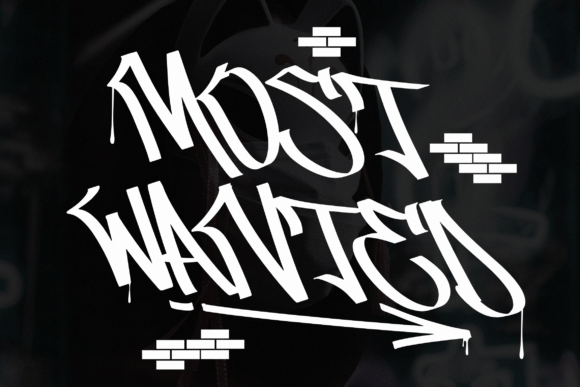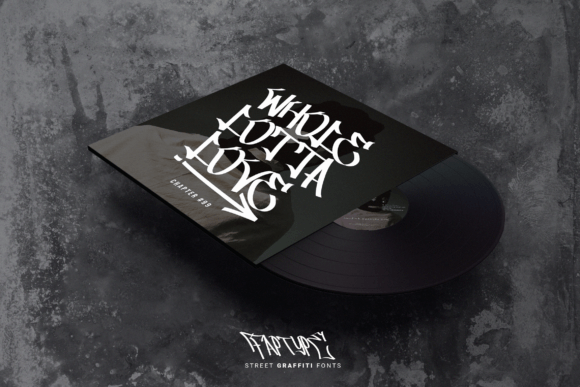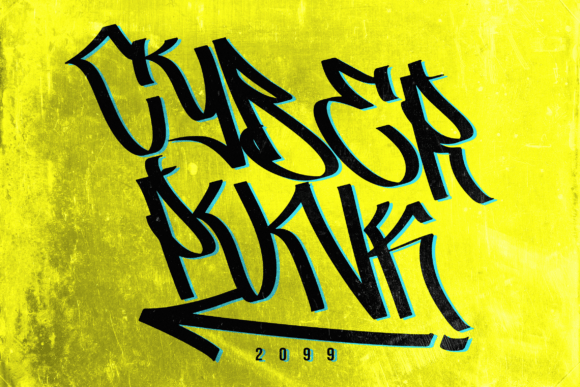
Introduction to Silver Raven Font
Silver Raven This font was created and inspired by the street writing of New York, and generated by the creative hands of graffiti addictions.
It has an incredibly unique design that can be perfect for a range of creative branding and packaging projects Take your designs to the next level with this stunning font.
Key Features of Silver Raven Font
Why Choose Silver Raven Font?